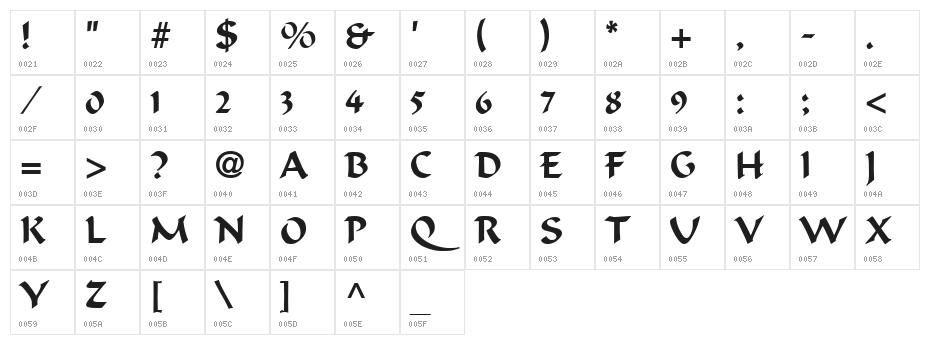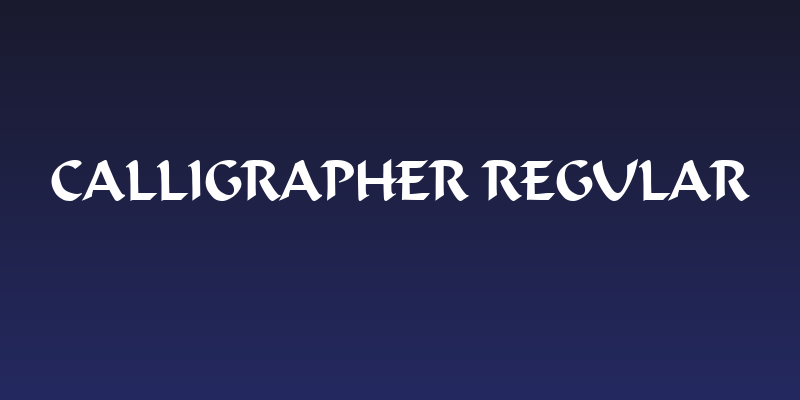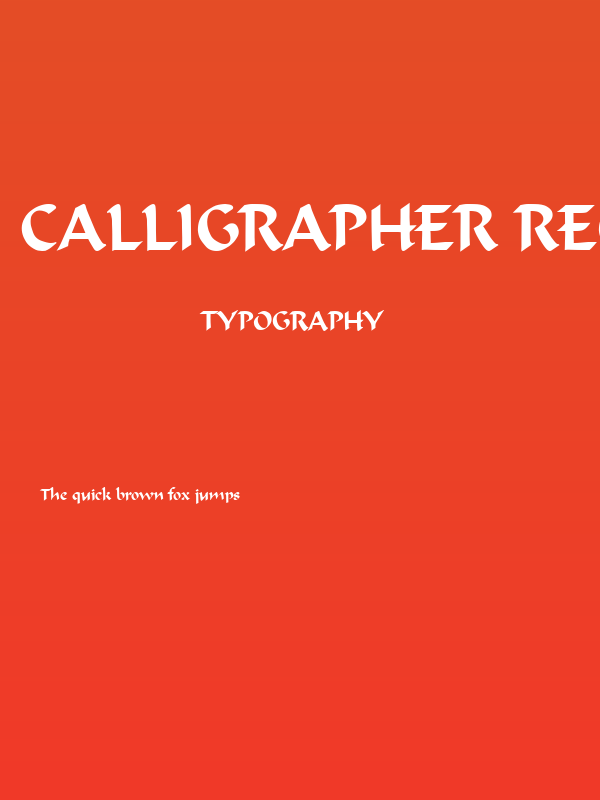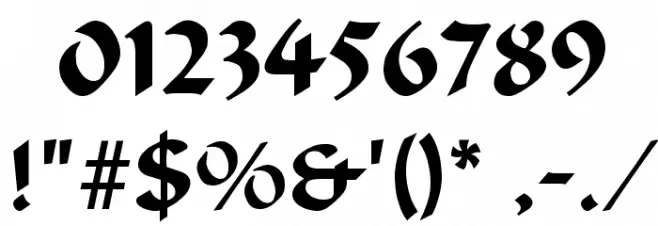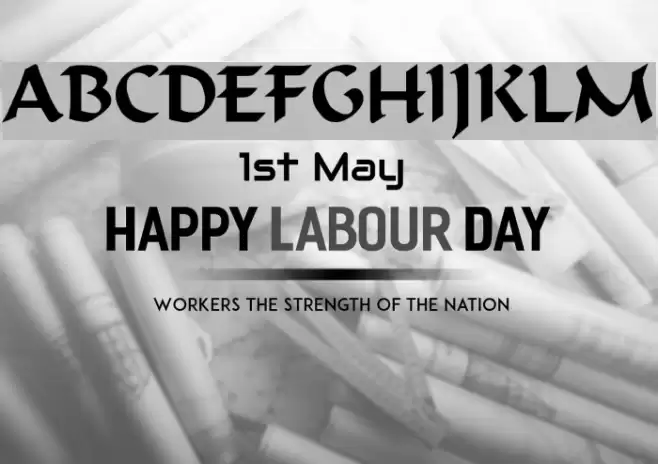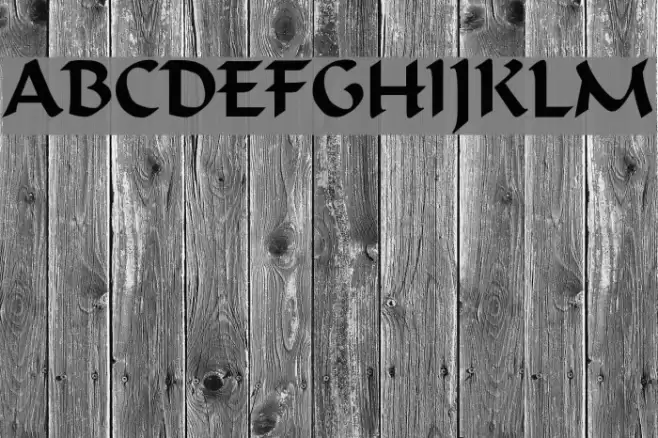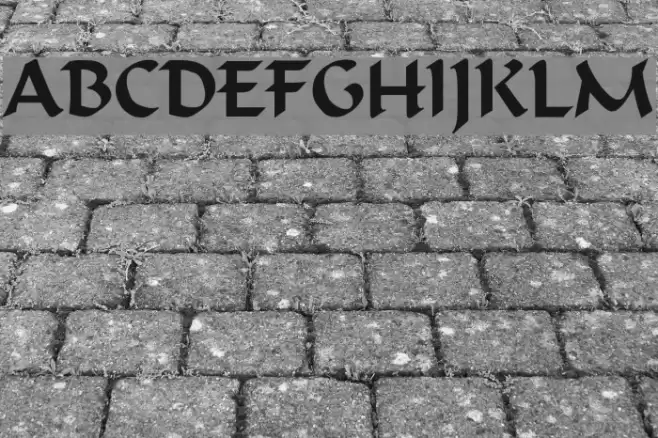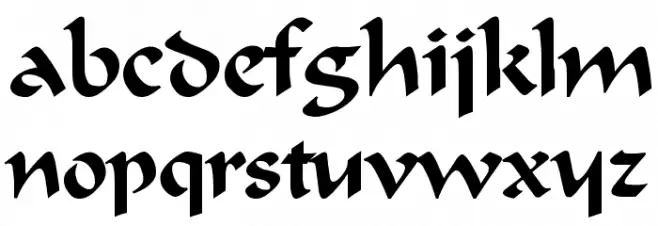
Calligrapher Regular Font
| Caso d'uso | Logos, Headlines, Decorative text |
| Progetti proposti | Ideal for invitations, certificates, branding, and any project requiring a touch of elegance and tradition. |